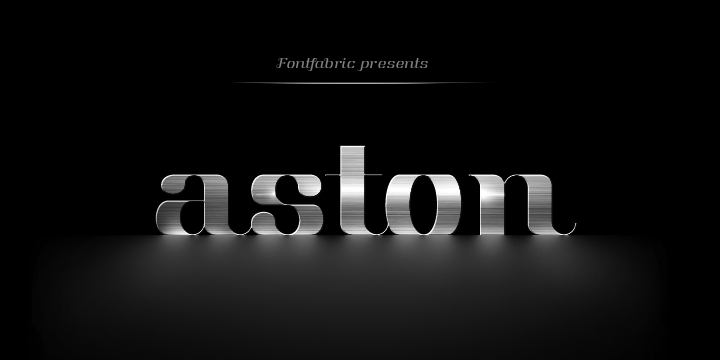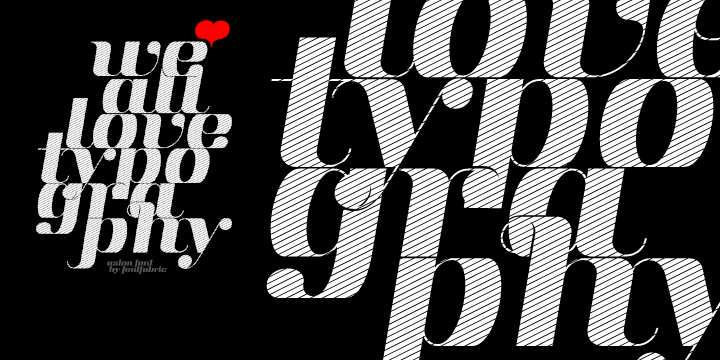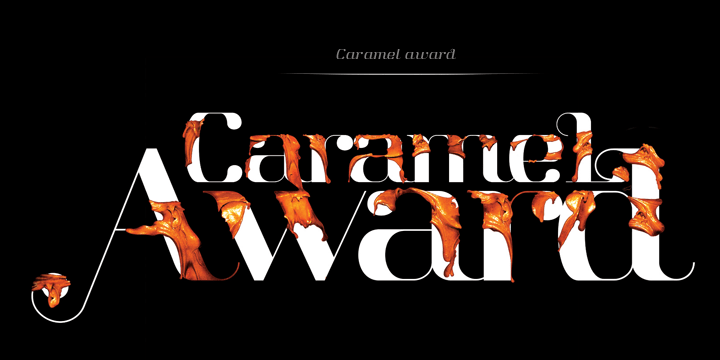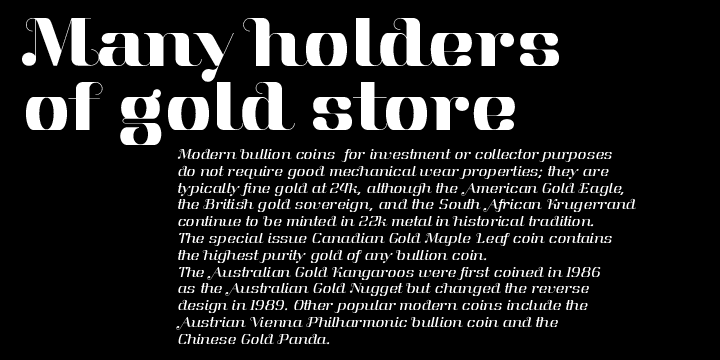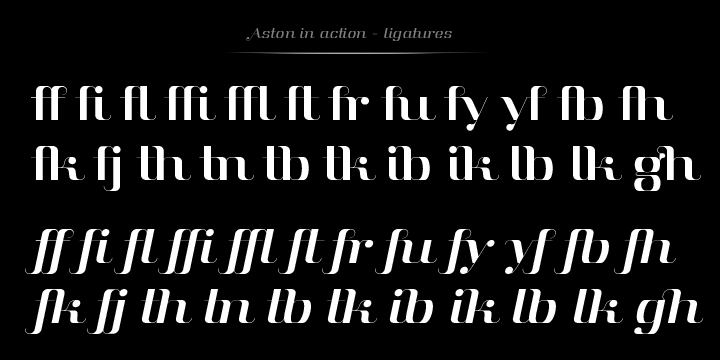
Aston
Font Family by Fontfabric
Aston is a custom sans serif font which is applicable for any type of graphic design - web, logo, print, motion graphics, and more.